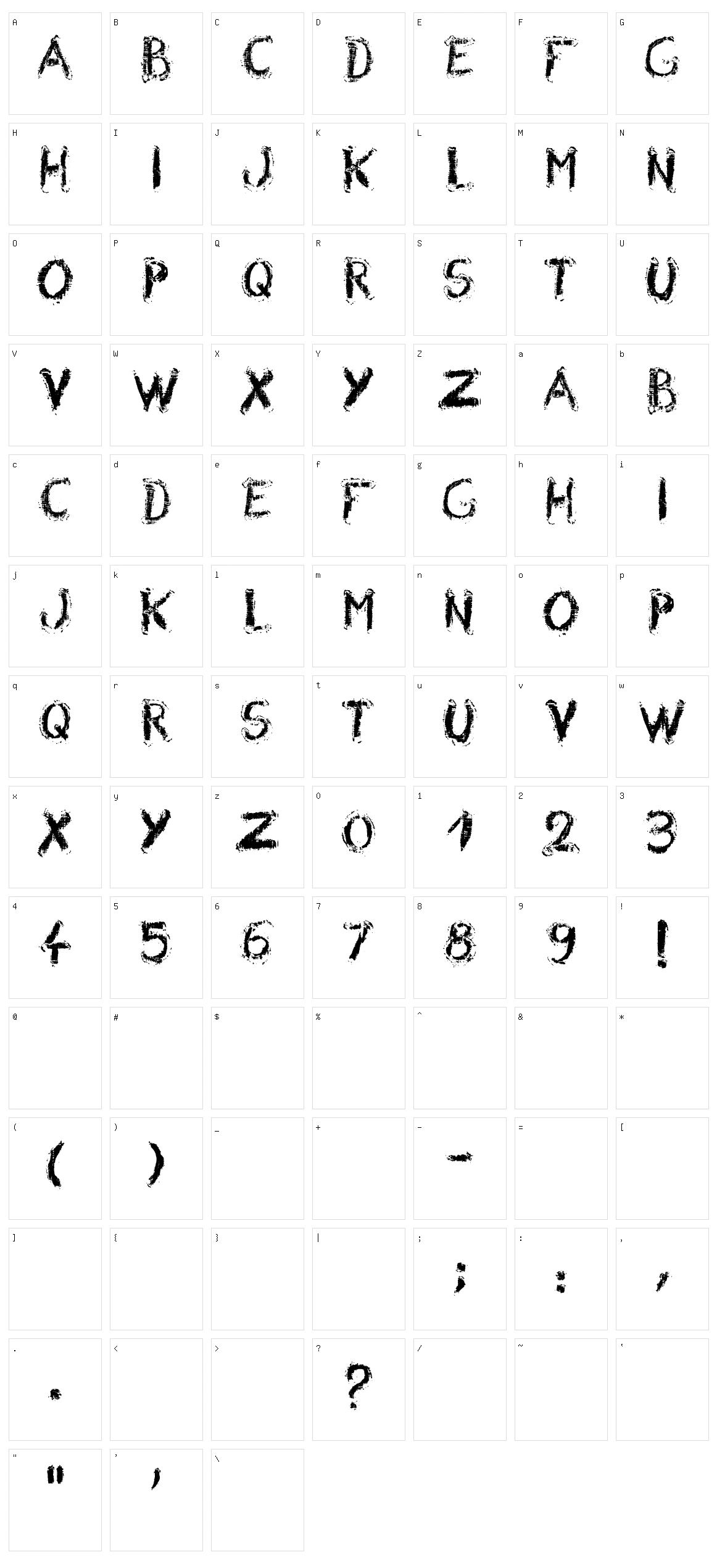
The free font Wrong Board 1 is carefully designed by imagex, showcasing a thoughtful balance of creativity and usability and falls under the Trash font style. When you download the ZIP file, it contains only 282.32 KB of font files, making it lightweight and quick to download. Please review the license details below to understand permitted usage and distribution rights. If license information is not available, we recommend using this font for personal projects only or contacting the author directly for commercial usage permissions.